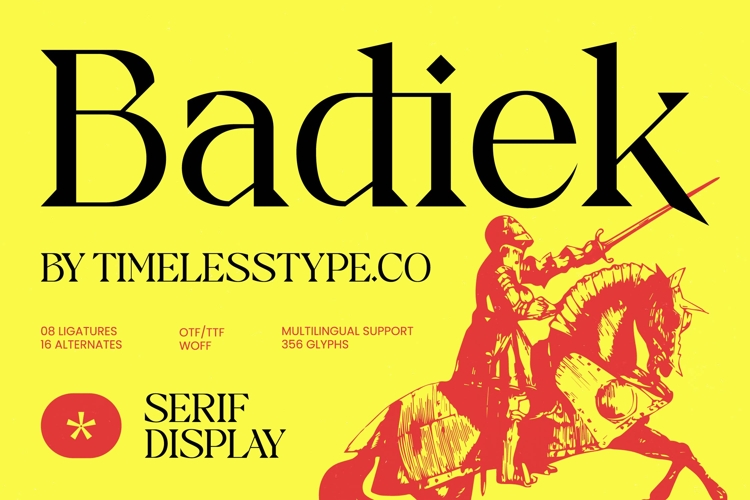
Badiek Serif Display
Badiek – Serif Display adapts seamlessly across global markets, making it incredibly versatile for international projects. Whether you are launching a campaign in Europe or scaling a brand globally, Badiek – Serif Display ensures consistent visual communication and professionalism in every language. This global adaptability makes it a future-proof investment for any creative agency or freelance designer.
Transforming conceptual visions into high-end brand experiences is effortless with Badiek – Serif Display. It is perfect for luxury branding, editorial design, premium packaging, and high-fashion magazines where elegance and boldness must coexist. Beyond these, Badiek – Serif Display excels in logo design and prestige advertising, providing a high-end finish that resonates with exclusive audiences. Elevate your portfolio today by choosing Badiek – Serif Display for your next project.